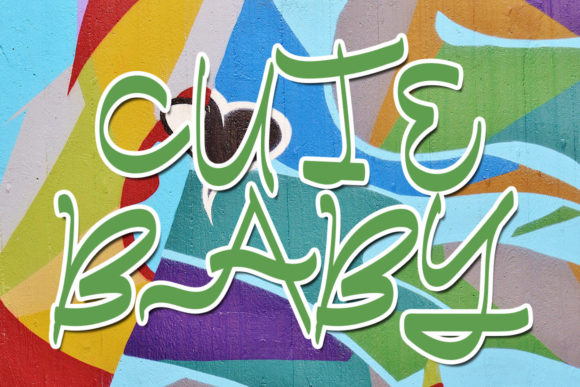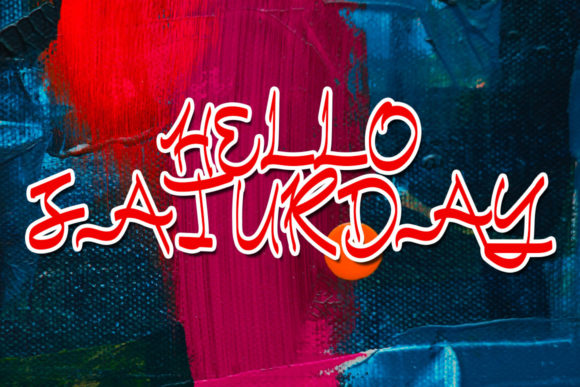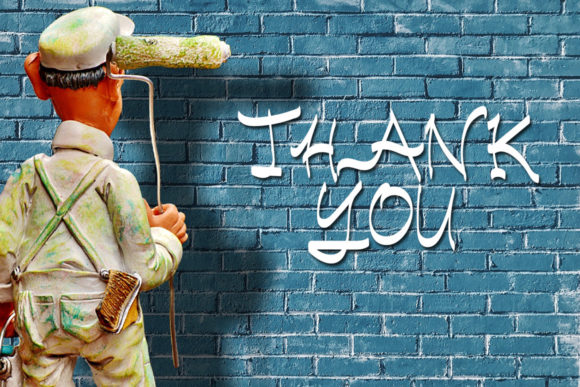
Unleash Your Creativity with Green Force Font: The Ultimate Graffiti-Styled Display Font
Are you a designer or crafter looking for a font that can add a touch of street art vibe to your designs? Look no further than the Green Force Font. This graffiti-styled display font is perfect for creating eye-catching designs that demand attention. In this article, we’ll explore the features and benefits of Green Force Font, and how it can elevate your designs to the next level.
What is Green Force Font?
Green Force Font is a bold, graffiti-styled display font that exudes a street art vibe. Its unique and edgy design makes it perfect for creating designs that stand out from the crowd. The font is highly legible, even at large sizes, making it ideal for use in a variety of applications, from t-shirts and sportswear to logos, advertisements, and clothing.
Features of Green Force Font
So, what makes Green Force Font so special? Here are just a few of its key features:
- Graffiti-styled design: Green Force Font has a bold, graffiti-styled design that’s perfect for adding a touch of street art vibe to your designs.
- Highly legible: Despite its bold design, Green Force Font is highly legible, even at large sizes.
- Versatile: Green Force Font can be used in a variety of applications, from t-shirts and sportswear to logos, advertisements, and clothing.
Benefits of Using Green Force Font
So, why should you choose Green Force Font for your designs? Here are just a few benefits of using this amazing font:
- Adds a touch of street art vibe: Green Force Font adds a touch of street art vibe to your designs, making them stand out from the crowd.
- Increases visibility: The bold design of Green Force Font makes it perfect for creating eye-catching designs that demand attention.
- Versatile: Green Force Font can be used in a variety of applications, making it a great addition to any designer’s toolkit.
Use Cases for Green Force Font
So, how can you use Green Force Font in your designs? Here are just a few ideas to get you started:
- T-shirts and sportswear: Green Force Font is perfect for creating bold, eye-catching designs for t-shirts and sportswear.
- Logos and branding: The unique design of Green Force Font makes it perfect for creating memorable logos and branding materials.
- Advertisements: Green Force Font is perfect for creating eye-catching advertisements that demand attention.
- Clothing and accessories: Green Force Font can be used to create bold, eye-catching designs for clothing and accessories, such as hats, bags, and more.
Tips for Using Green Force Font
Here are a few tips for getting the most out of Green Force Font:
- Use it sparingly: Green Force Font is bold and eye-catching, so use it sparingly to avoid overwhelming your designs.
- Experiment with colors: Green Force Font looks great in a variety of colors, so experiment with different colors to find the one that works best for your design.
- Pair it with other fonts: Green Force Font can be paired with other fonts to create a unique and eye-catching design.
In conclusion, Green Force Font is a graffiti-styled display font that’s perfect for adding a touch of street art vibe to your designs. Its bold design, high legibility, and versatility make it perfect for use in a variety of applications, from t-shirts and sportswear to logos, advertisements, and clothing. With its ease of use and flexibility, Green Force Font is a great addition to any designer’s toolkit.